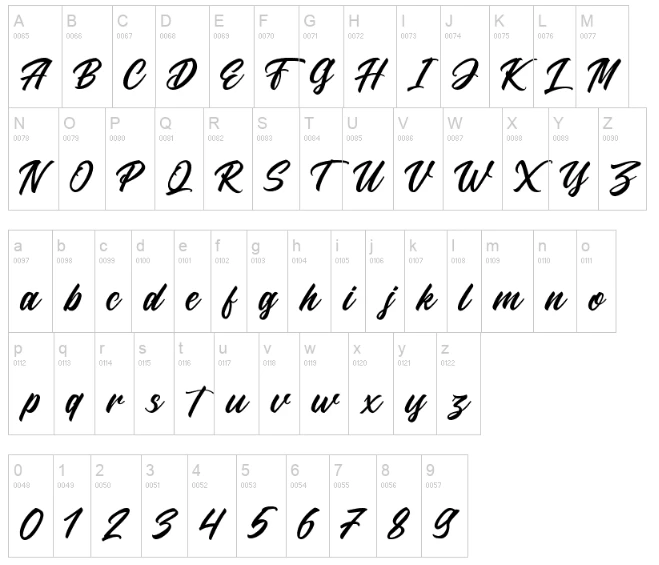
Larizo Script is a new type of script and brush font. A totally unique handcrafted calligraphy that has been turned into a typeface! This font has ligature, stylistic alternate, contextual alternate, swash, and other OpenType features and multilingual support. The font is available in OTF and TTF versions of Larizo Script, OTF and TTF versions of Larizo Swash. The font also includes 12 ready-to-use logo designs and 66 hand-drawn beach icons.
Letterhend developed and shared the font. This typeface, in my opinion, is an excellent choice for all practical work, as it can be used on signboards and billboards. You can also use this lovely Script and brush font to play around with. This typeface contains a number of fantastic glyphs and curves with which you may do a lot of creative work. Windows, Apple/Mac, Linux, Cricut, Silhouette, and other cutting machines are all interoperable with the font. Another excellent aspect of this font is that it may be used in a variety of languages.
This font has a distinct personality and flow that makes it ideal for usage in wordmarks, badges, signboards, posters, headline text, clothes, and wedding invitations, among other applications. You’ll also get ready-made beach-themed logo templates and icons!